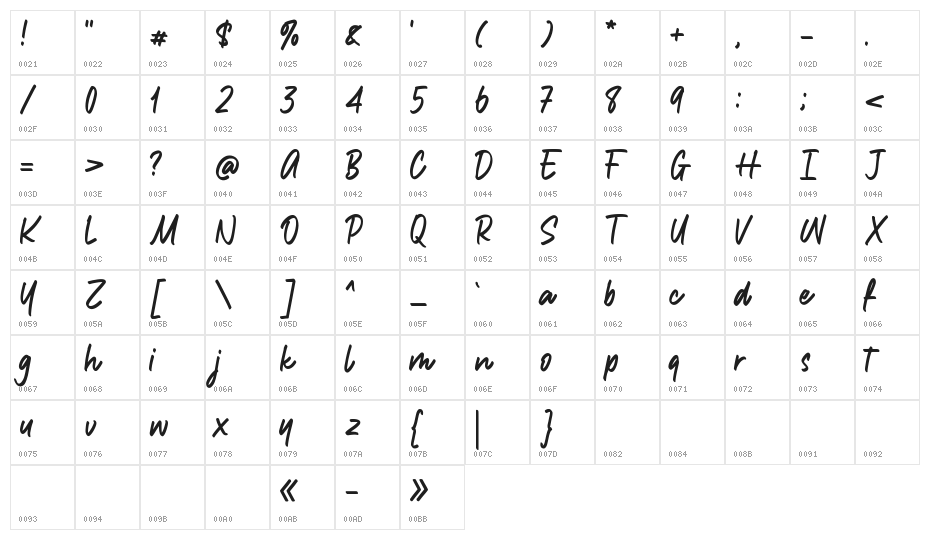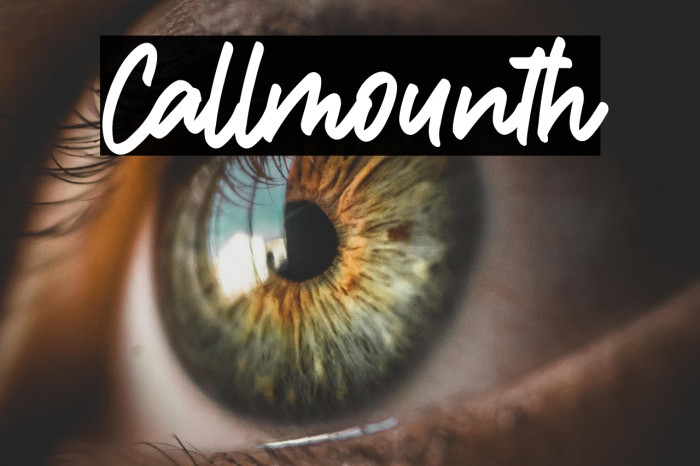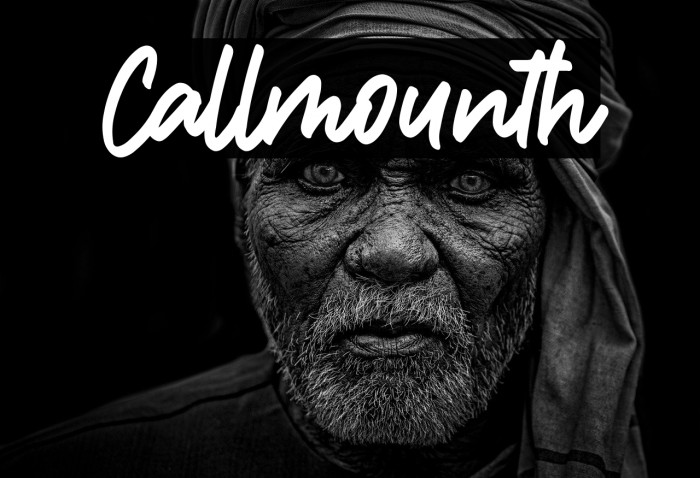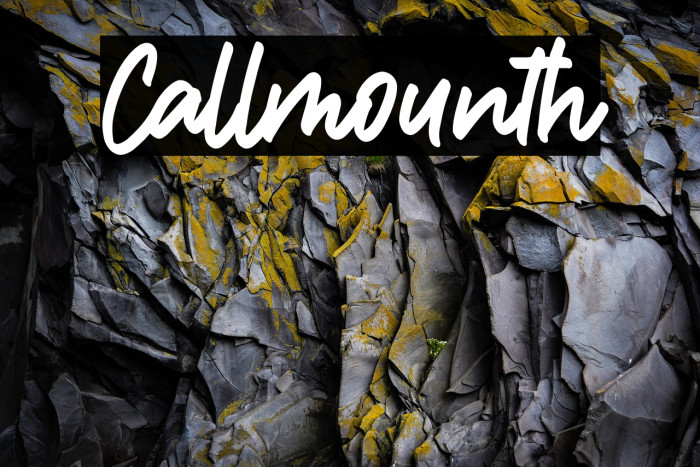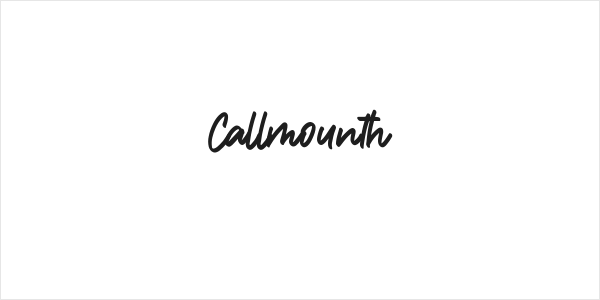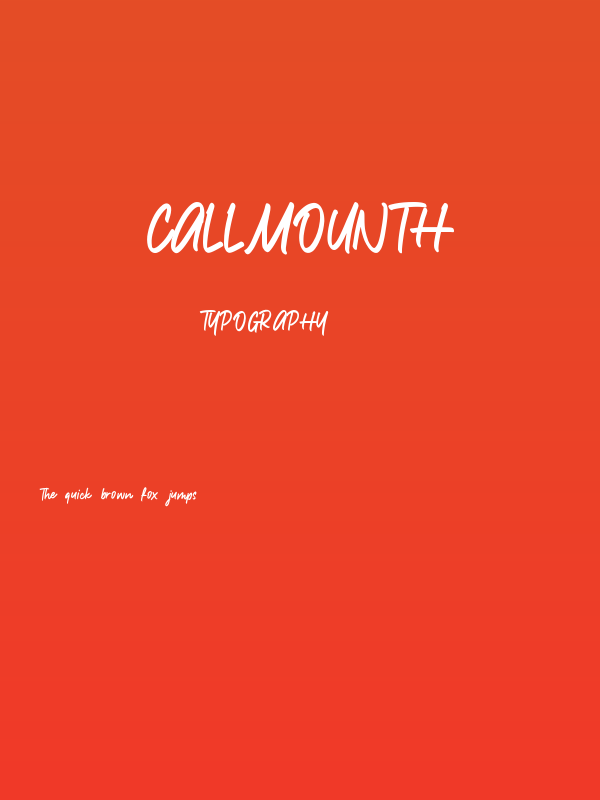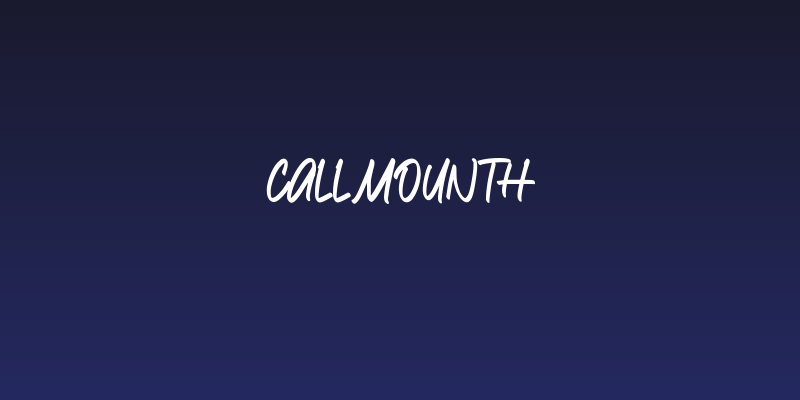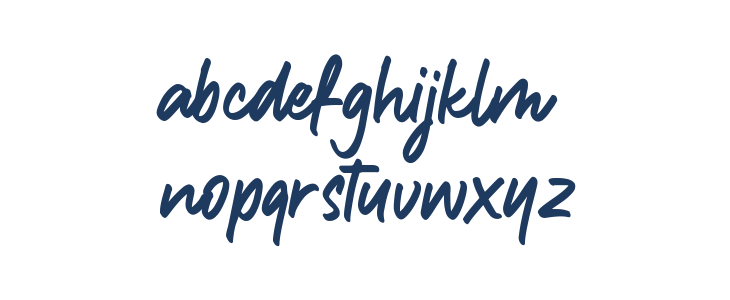
Callmounth Font
Callmounth Description
This font features a bold, handwritten style with a dynamic and energetic appearance. The letters are slightly slanted, giving a sense of movement and fluidity. The strokes are thick and consistent, providing a strong visual impact. The uppercase and lowercase letters maintain a cohesive look, while the numerals and special characters are crafted to match the overall style. The font's informal and lively character makes it suitable for creative and expressive design projects.
| Proposed Projects | Ideal for branding, posters, social media graphics, and any project requiring a personal, energetic touch. |